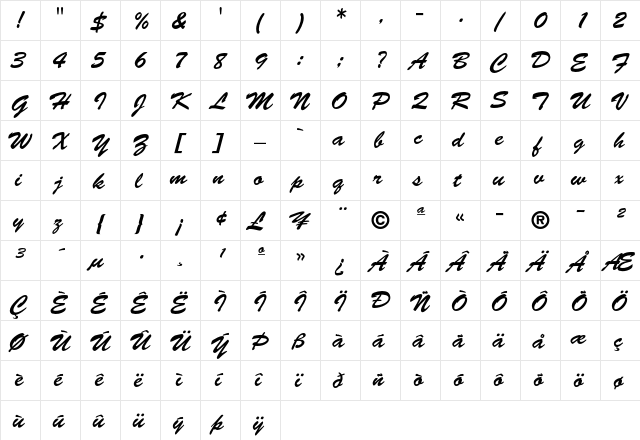
Brush Script Medium Font Preview
Brush Script Medium
Design Context for Brush Script Typeface
Brush Script brings a calligraphic fluidity to the page — its connecting strokes and expressive curves give it an unmistakably human quality.
Dating back to 1987, this typeface is available in OpenType (OTF) format.
Font Pairing: Combine Brush Script with a simple geometric sans for maximum contrast — the tension between flowing curves and clean structure is a classic typographic pairing.
Pro Tip: Use Brush Script for short runs of text — names, titles, or taglines. Extended body copy in script faces tires the eye quickly.